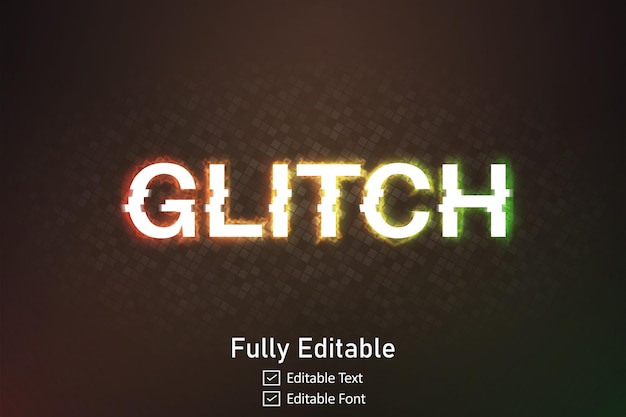
realistic glitch text effect for video game text for editable cyber monad vhs font
Realistic glitch text effect for video game text for editable cyber monad vhs font